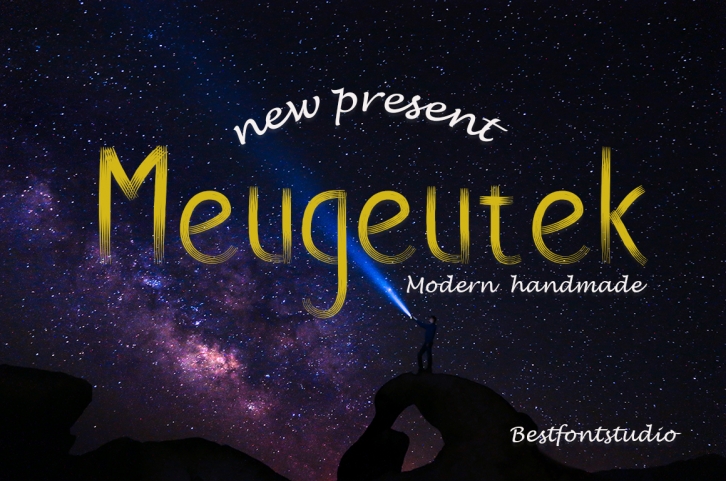
MEUGEUTEK HANDWRITTEN is a great font that was designed by Fancy Fonts. Imagine the amount of combinations you can create using this font! The archive is 4.31 MB and it was released on February 11, 2017. MEUGEUTEK HANDWRITTEN looks beautiful on wedding invitations, greeting cards, logos, posters, labels, t-shirt designs, logos, business cards and is perfect for use in ink or watercolor works, fashion, magazines, packaging and food menus, children's books and more!